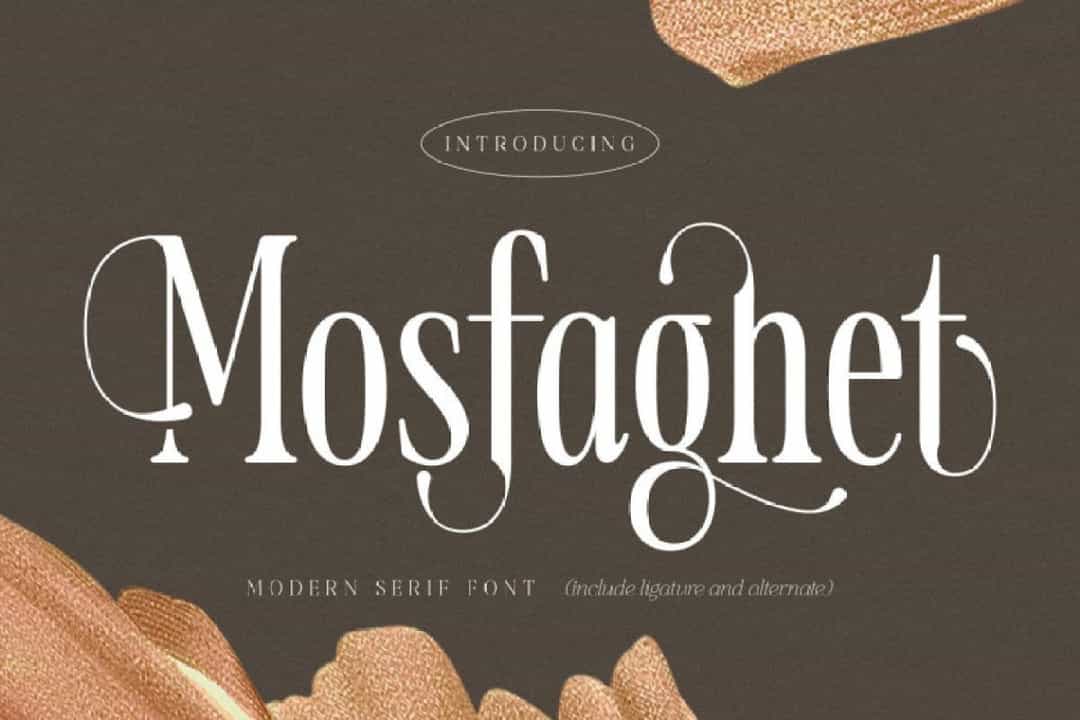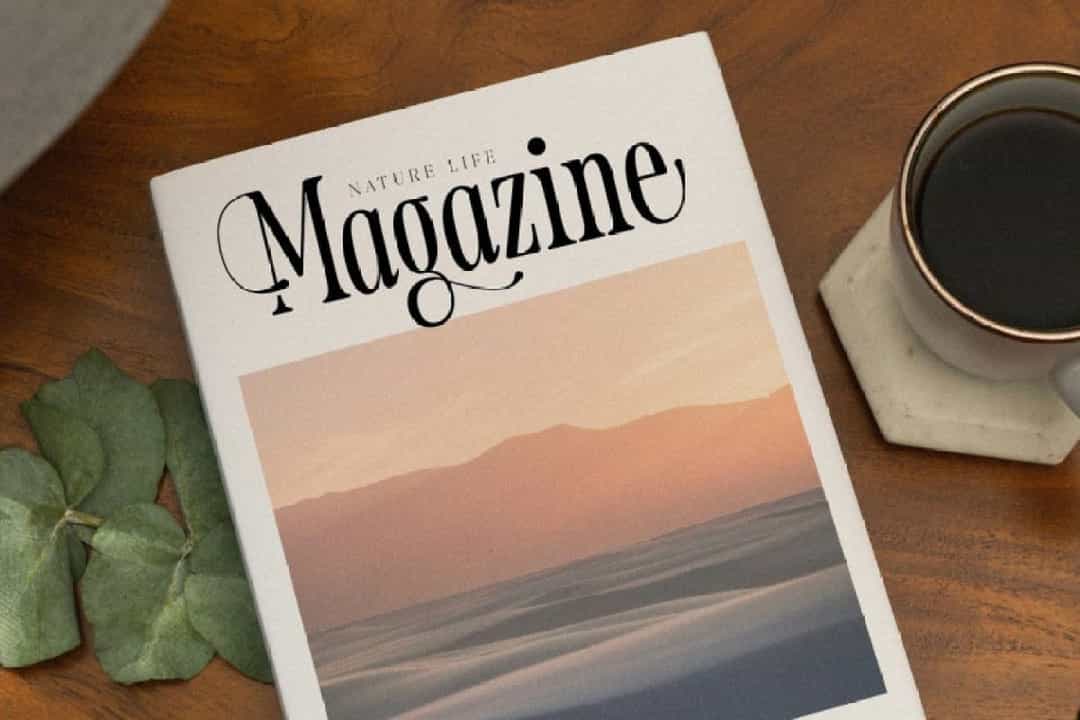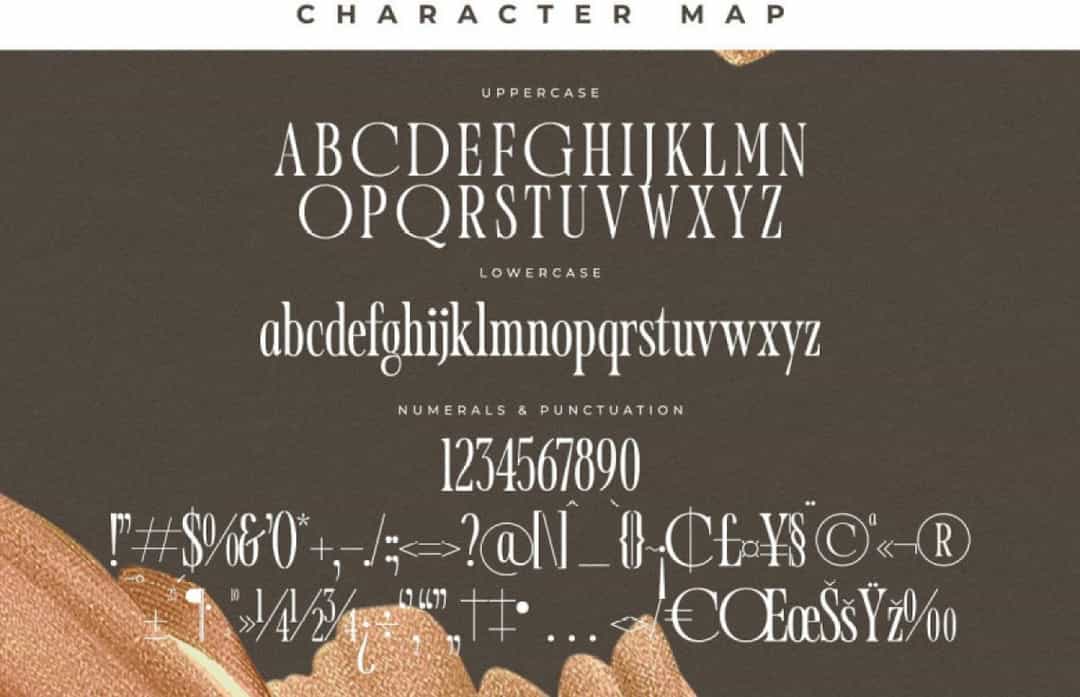
Mosfaghet is a modern yet timeless serif typeface which stands out with its distinct design and contemporary appearance. Perfect for creating stylish logos, movie or book titles, fashion label clothing designs, magazine pages and lettering, as well as quotes – Mosfaghet offers endless opportunities for use!